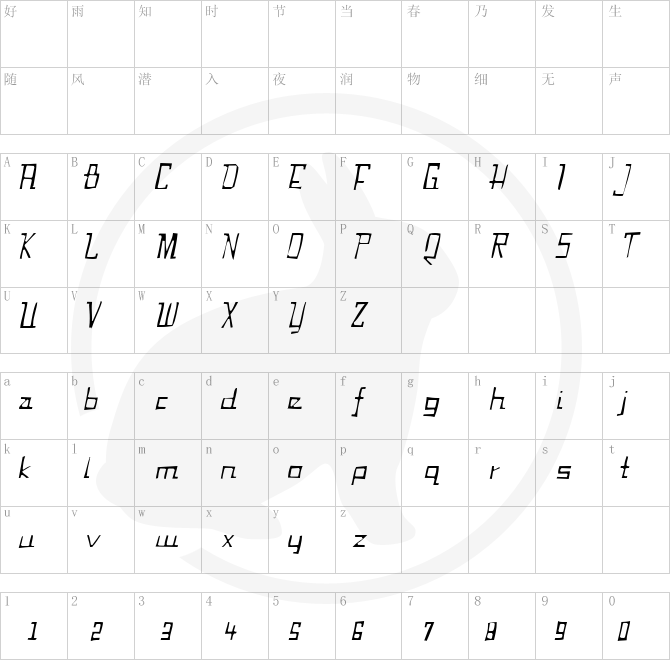
- Font Name:Fabian Gaunt
Fabian-Gaunt-Italic.ttf is a very beautiful artistic font, Fabian-Gaunt-Italic.ttf is widely used in the design and printing of various books and pictures,Fabian-Gaunt-Italic.ttf has a strong visual impact,Fabian-Gaunt-Italic.ttf is a commonly used font in newspapers, magazines and books, and is used in posters, e-commerce Poster design, store design, logo design, font design and other fields.Fabian-Gaunt-Italic.